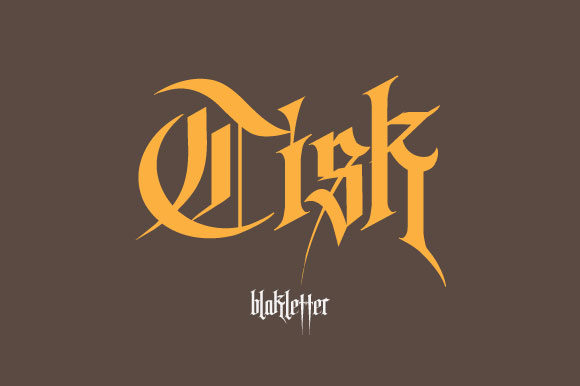
Prepare yourself to be spellbound by Tisk, the captivating blackletter font that will transform your creative projects into mesmerizing works of art! Step into a realm of dark beauty and unleash your imagination as Tisk weaves its magical spell upon your designs. Let your words dance with an air of mystery and intrigue, captivating your audience with a touch of the extraordinary.
With Tisk's enchanting curves and sharp edges, you'll craft enchanting logos that command attention. Create invitations that exude elegance and sophistication, leaving a lasting impression on your guests. Design posters that transport viewers to a world of fantasy, enticing them with a glimpse of the unknown.
Tisk is more than just a font; it's an artistic journey that ignites your creativity and empowers you to express yourself in extraordinary ways. Its versatility allows you to breathe life into any project, from branding and marketing to invitations and personal crafts. Embrace the boundless possibilities and let Tisk unleash the magic within you.
Don't settle for ordinary. Embrace the Tisk experience and elevate your designs to new heights of enchantment. Let your imagination soar and create masterpieces that resonate with your audience. Unlock the power of Tisk today and embark on a creative adventure like no other!